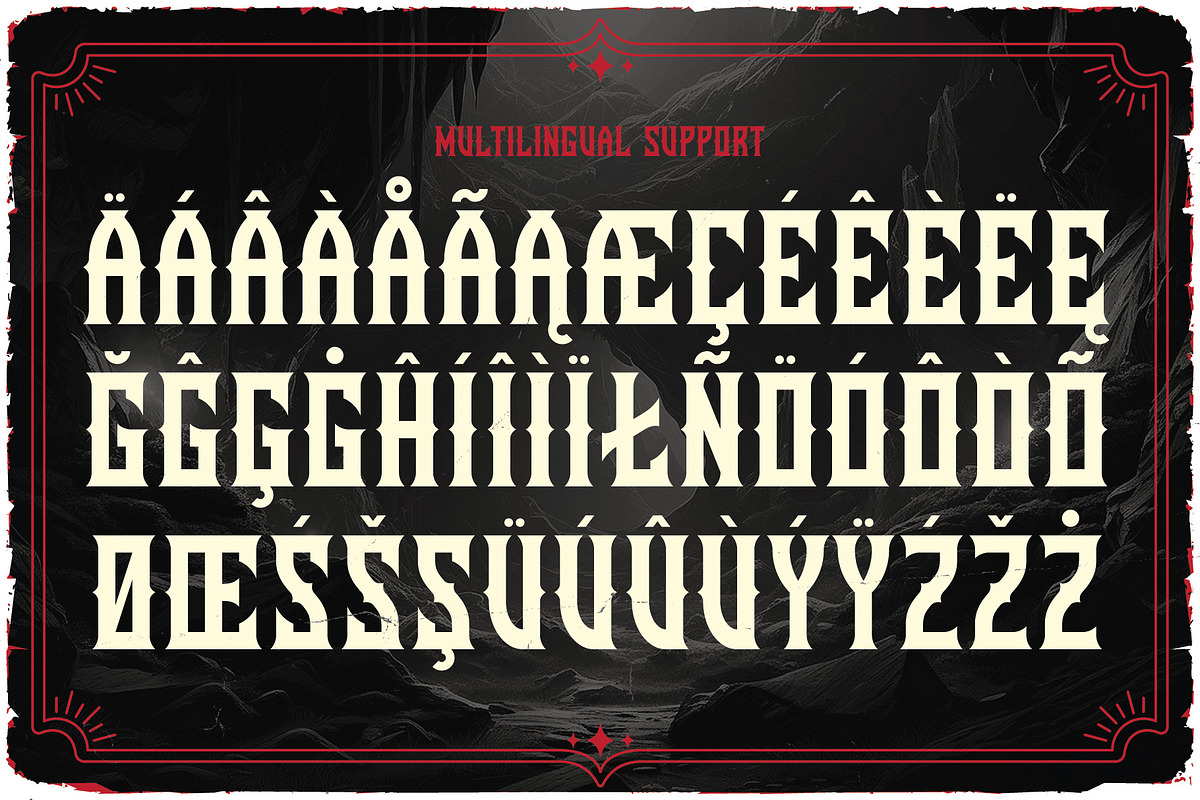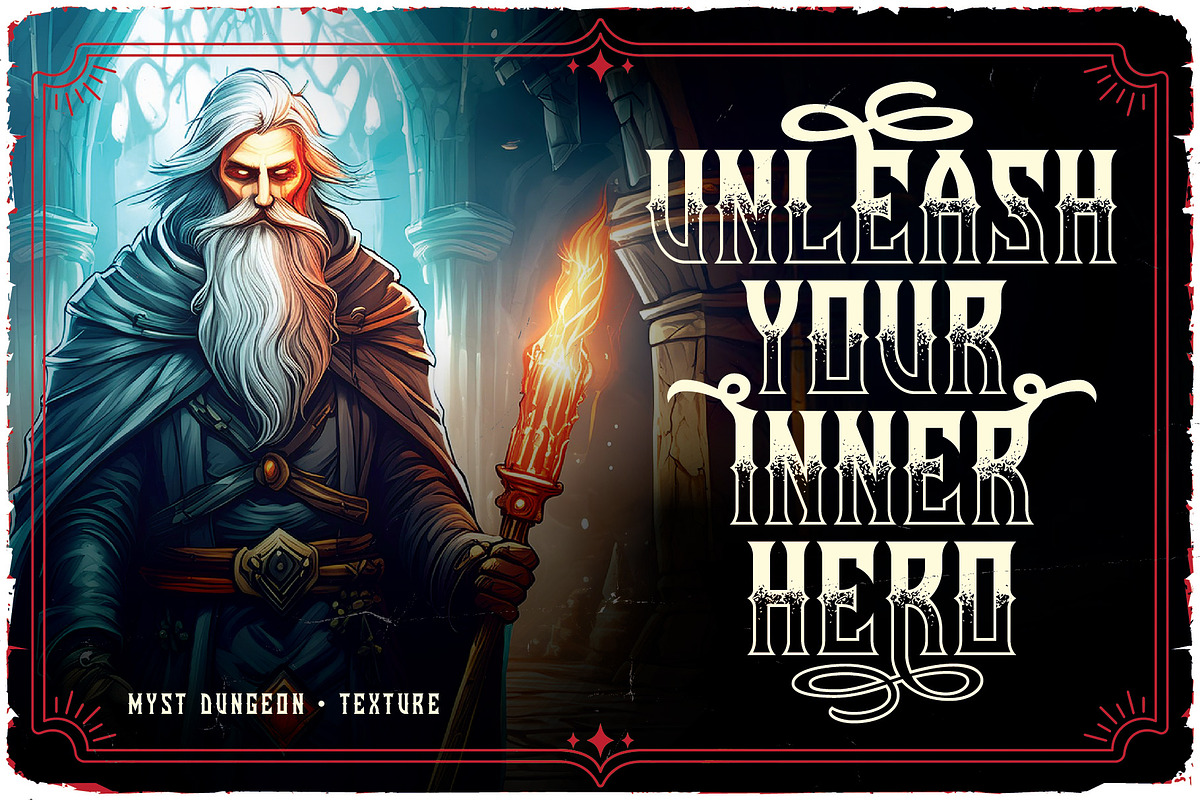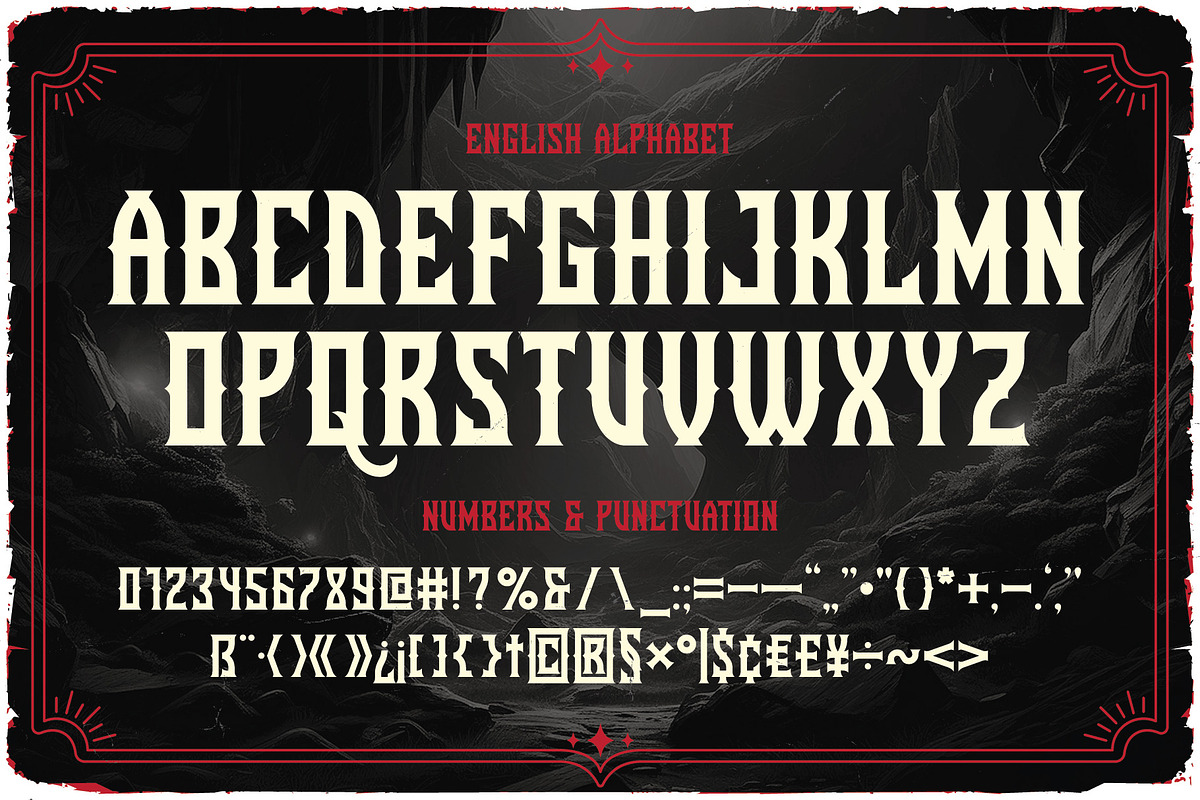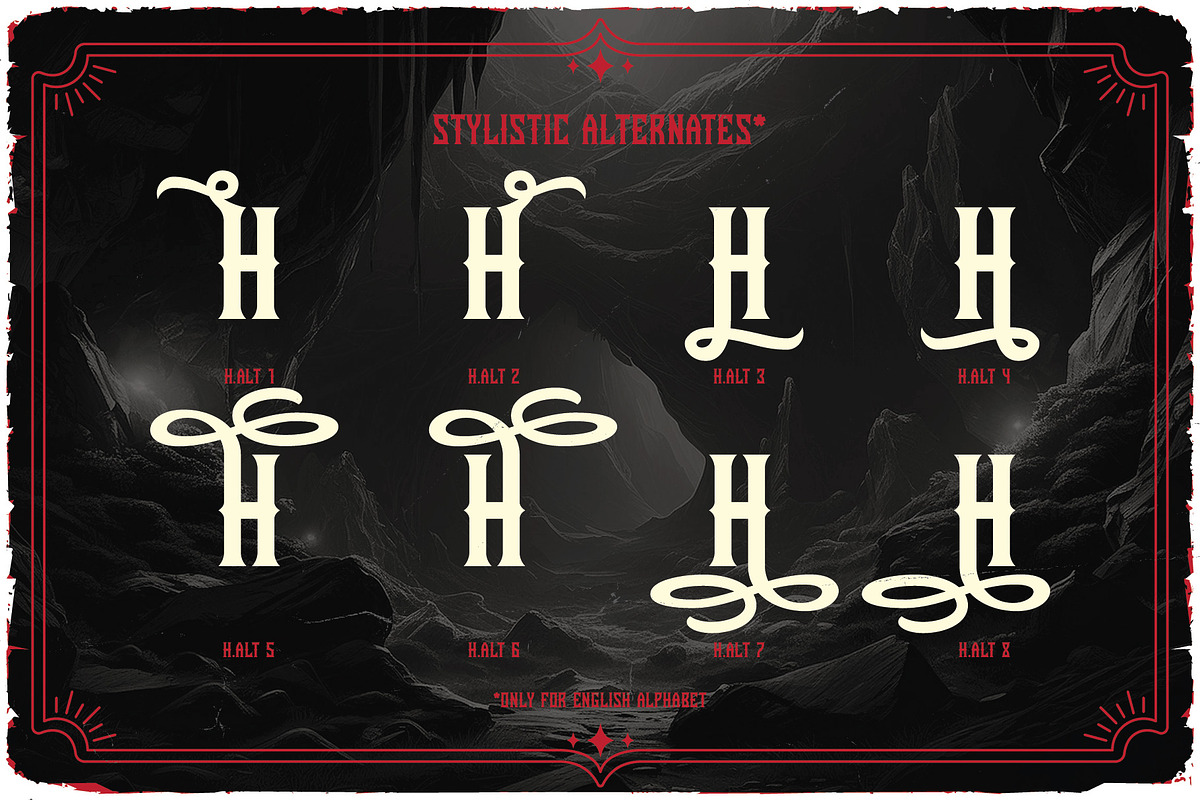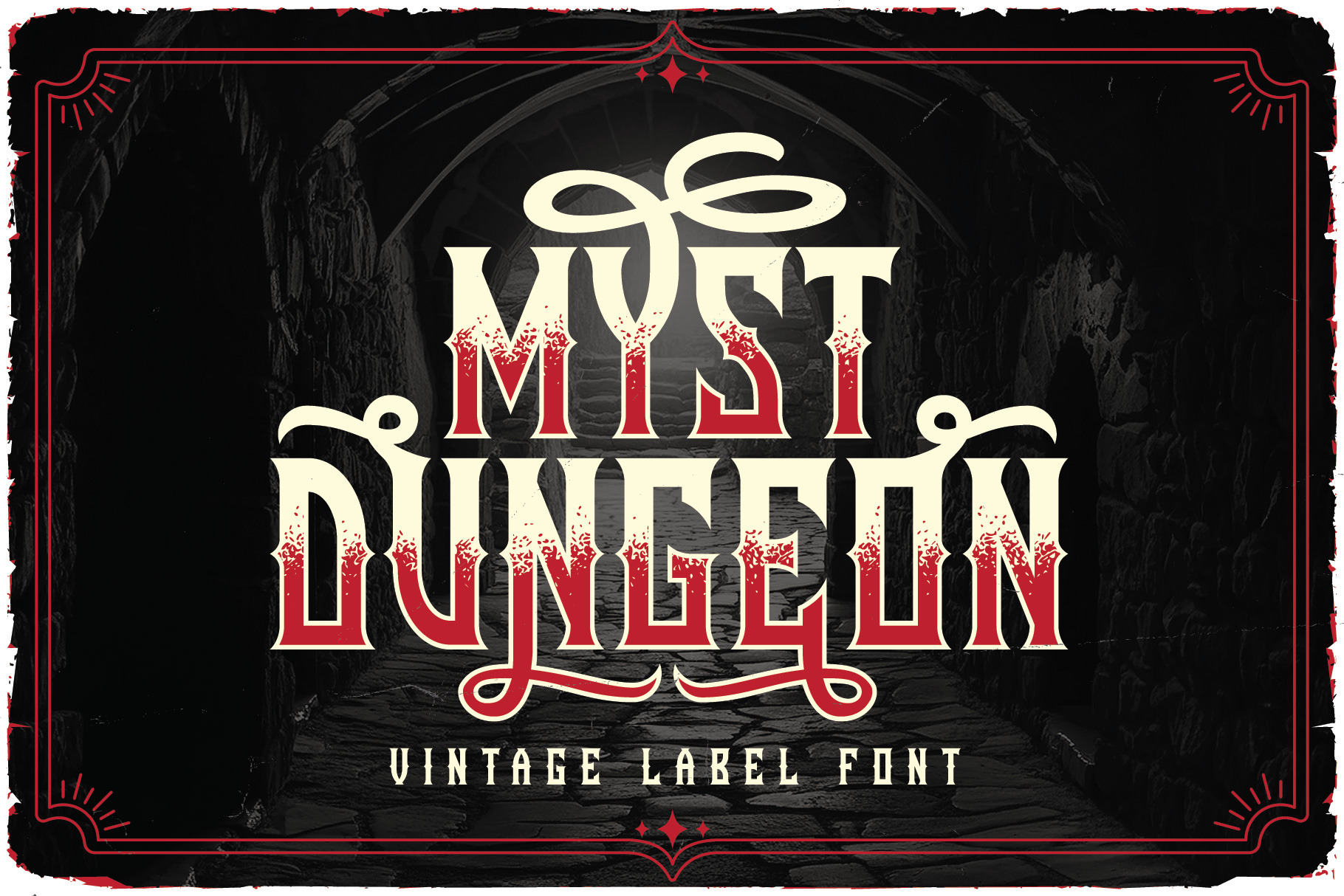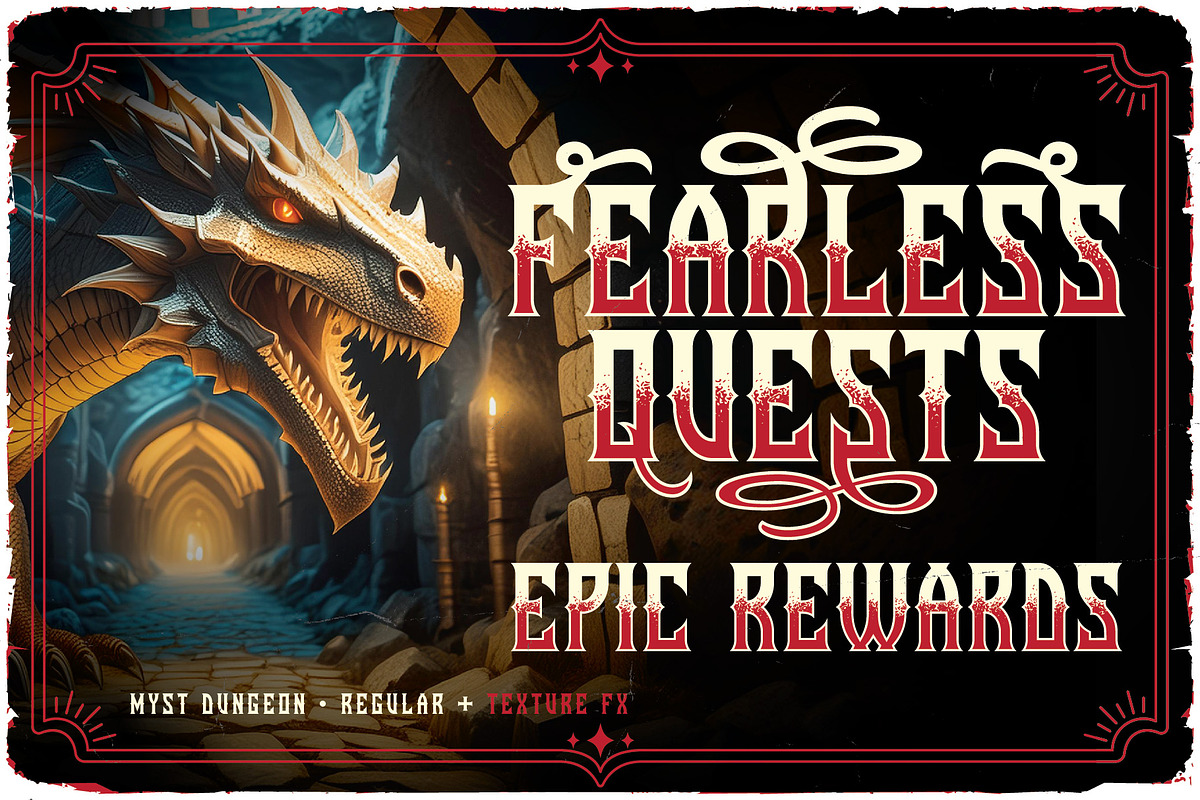
Myst Dungeon Vintage Label Font
Unique, creative, vintage, fantasy, horror, monogram, sharp, blackletter & label serif font. Comes with multilingual support & alternate characters + textured & effect font versions - great for your new logo, monogram or branding project.
- 3 font styles - Regular & Textured & Effect
- Multilingual support & alternate characters
- Great for retro or vintage style branding projects